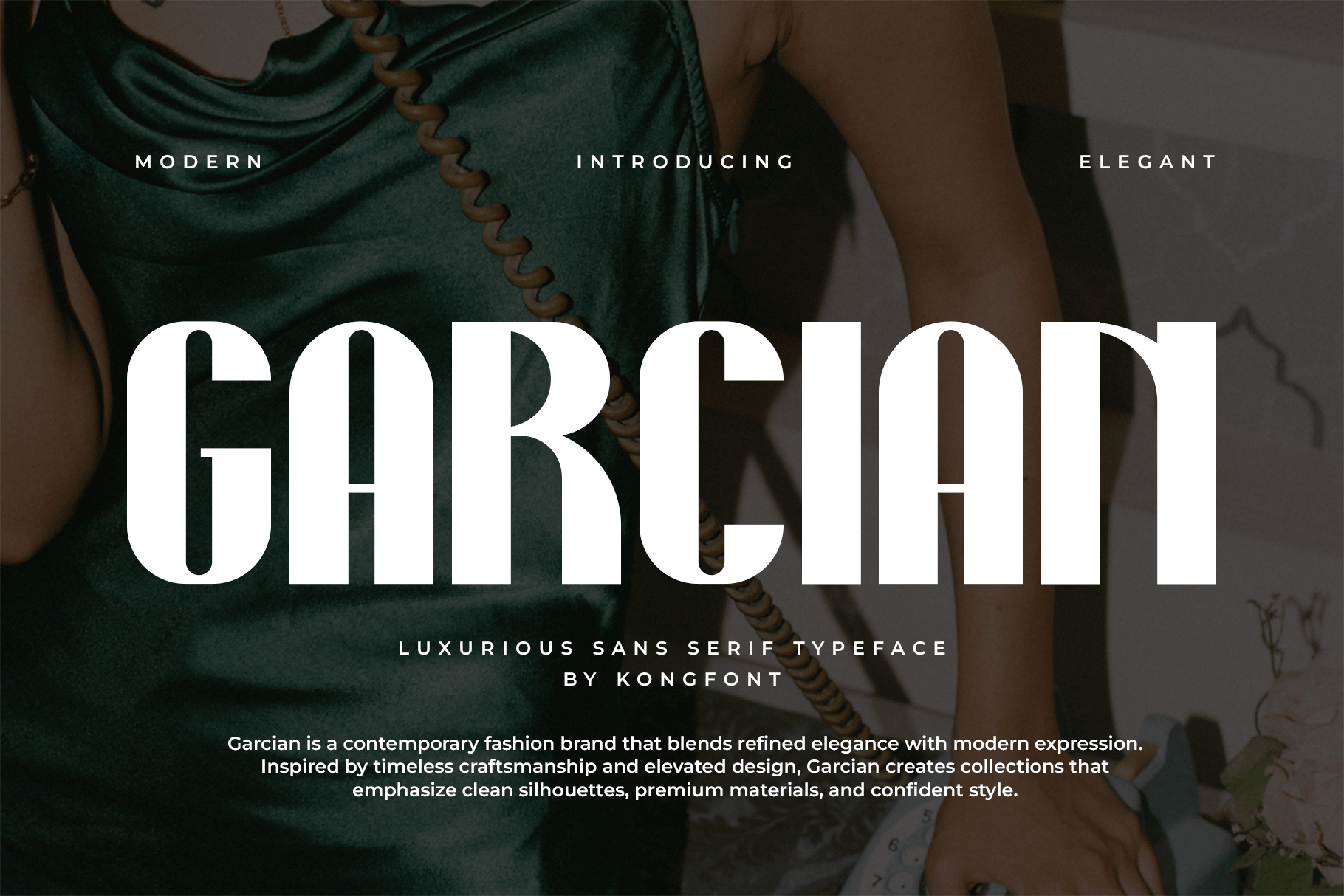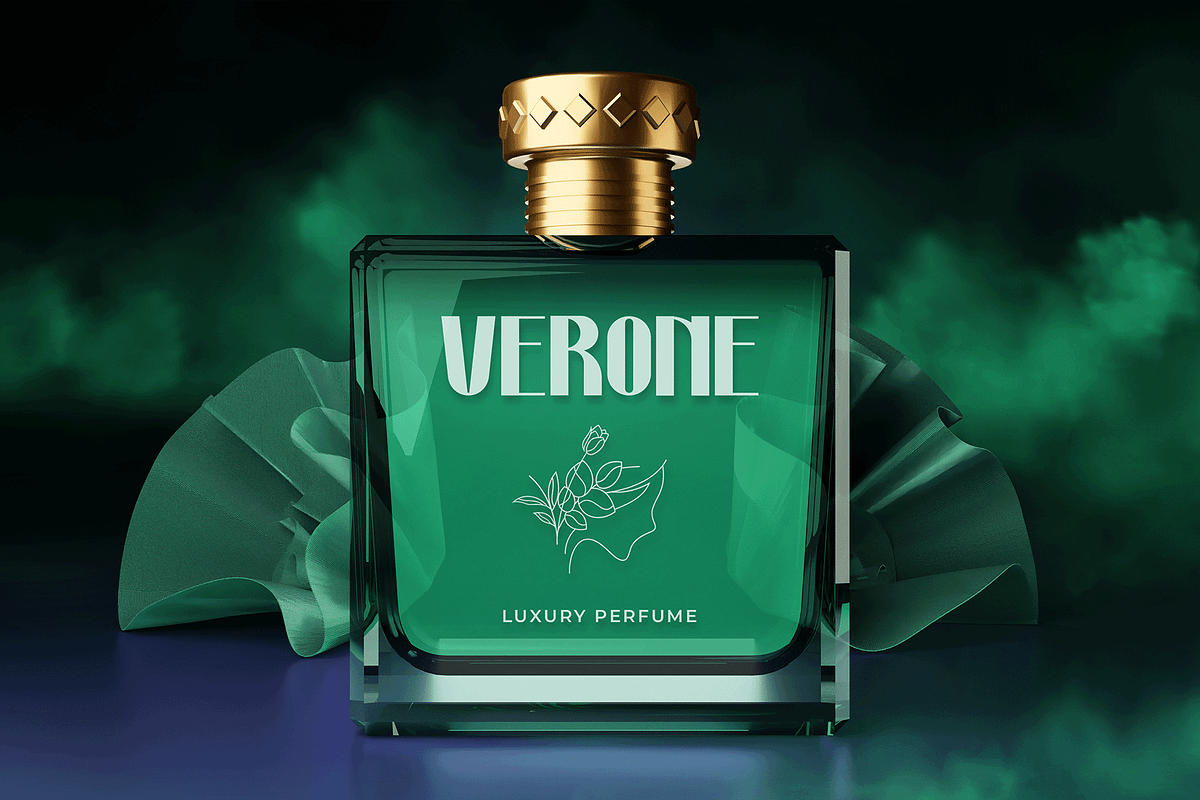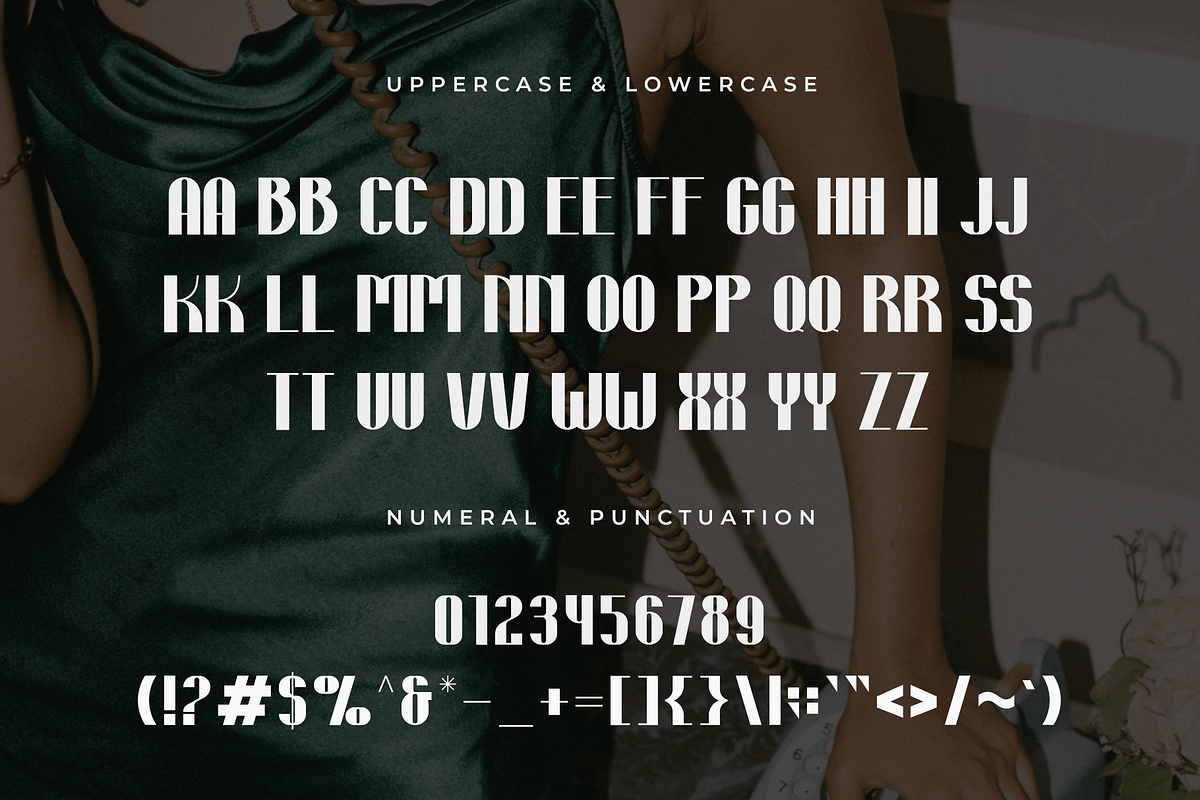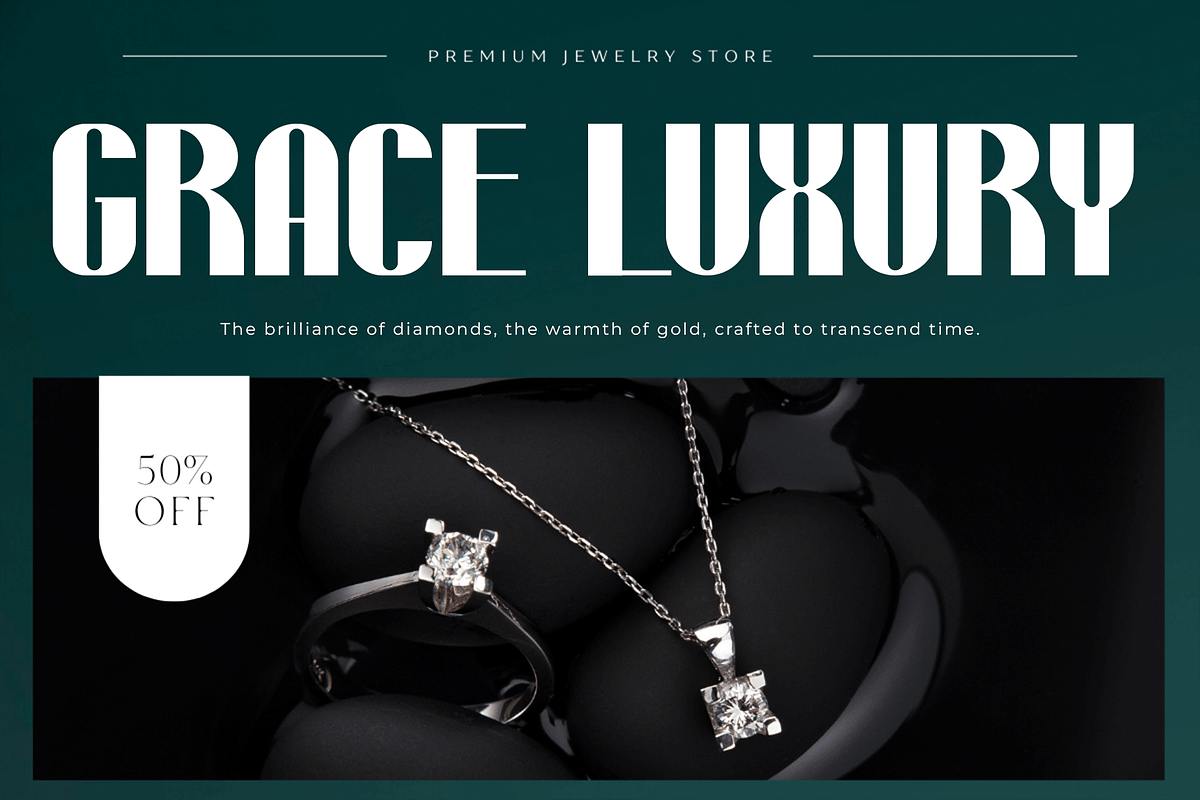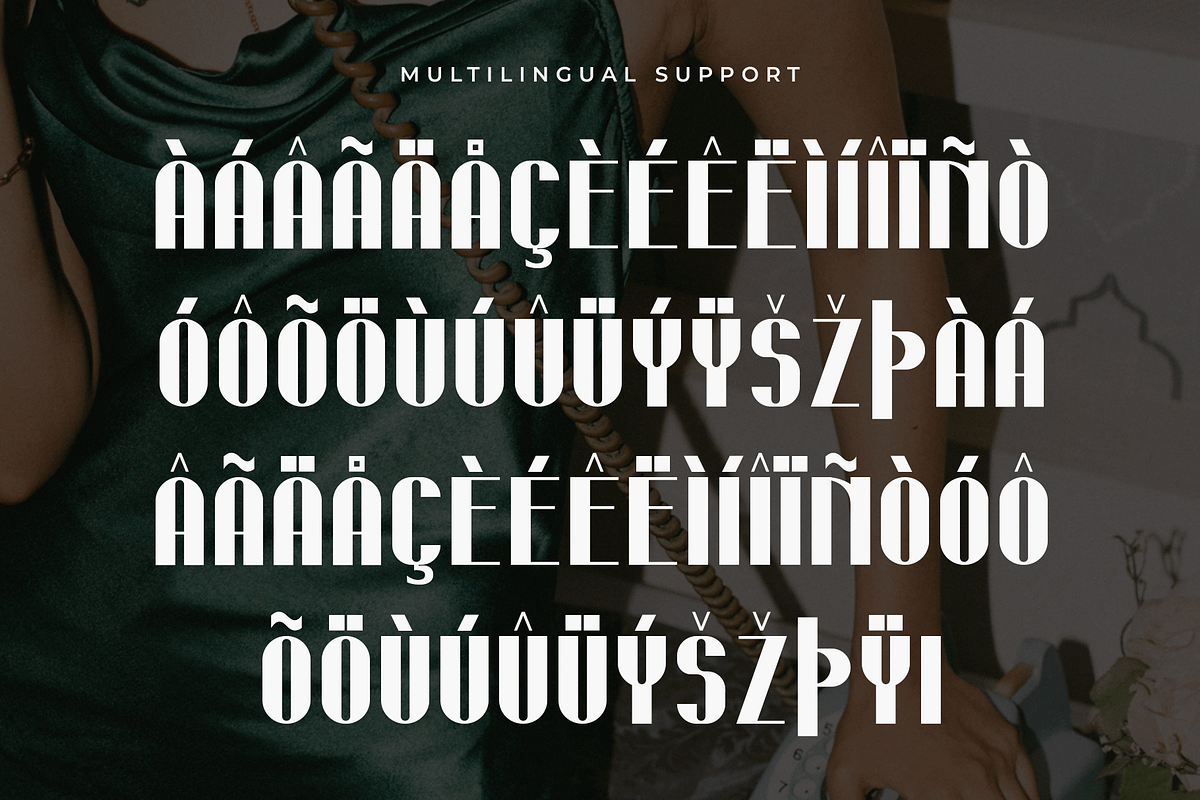
Garcian - Luxurious Sans Serif Font
Introducing Garcian, a luxurious sans serif font designed to embody elegance, clarity, and modern prestige. With its clean lines, balanced proportions, and refined details, Garcian delivers a sophisticated visual identity that feels premium while remaining minimal and contemporary.
Garcian includes uppercase and lowercase letters, numerals, punctuation, and multilingual support, providing versatility for both print and digital applications. Whether you're building a luxury brand identity, creating an elegant editorial layout, or designing refined promotional content, Garcian elevates your typography with confidence and style.